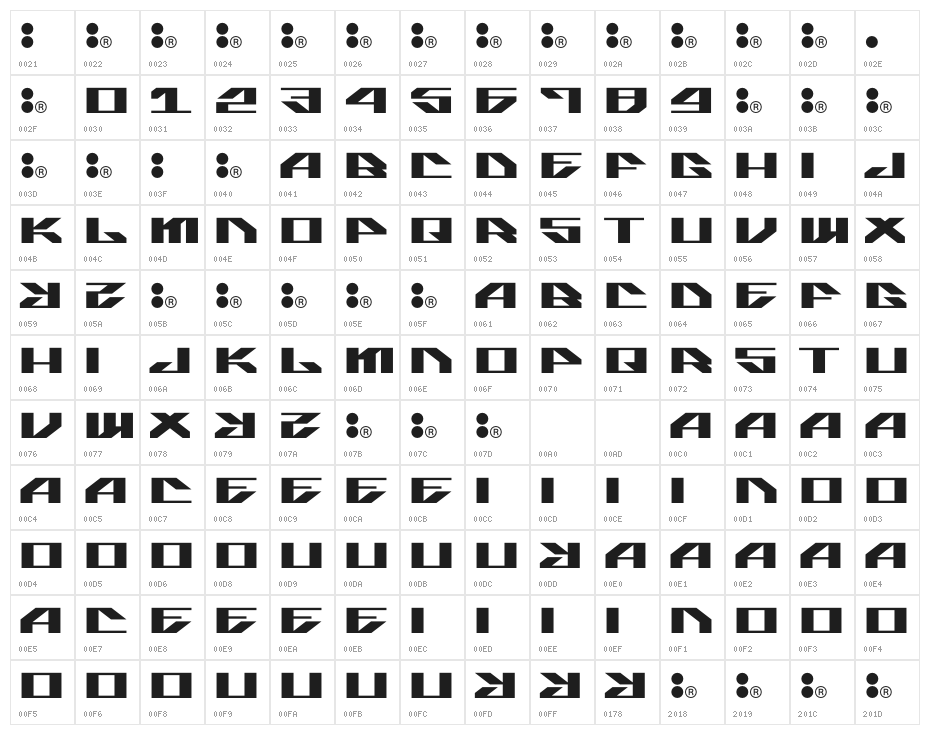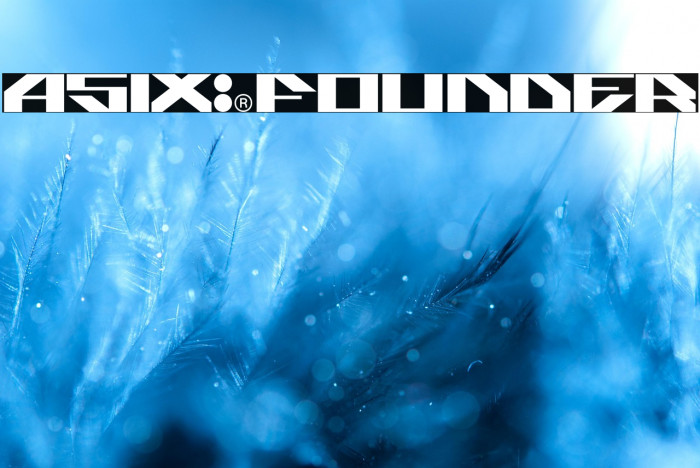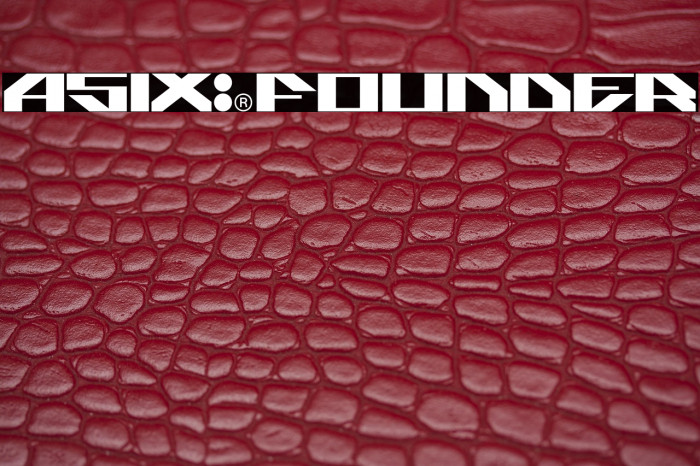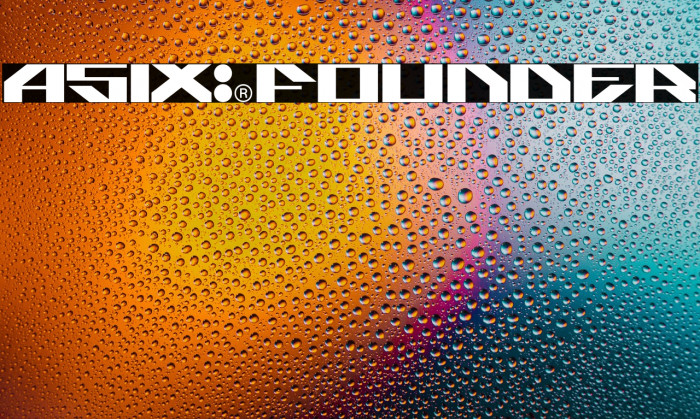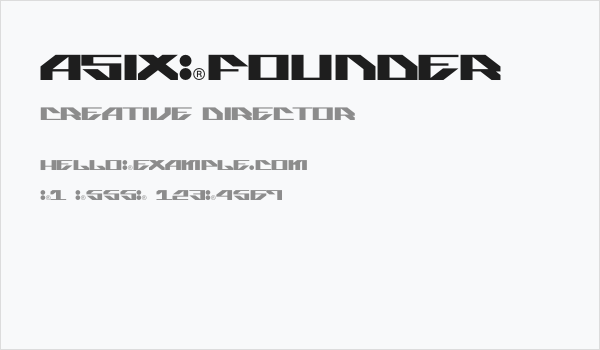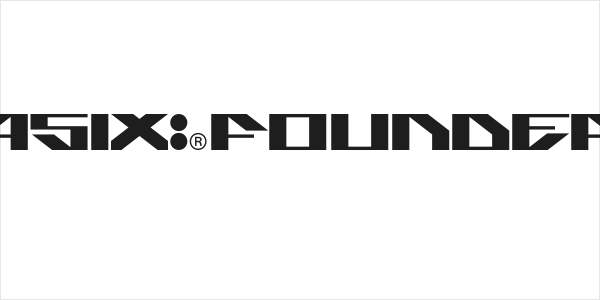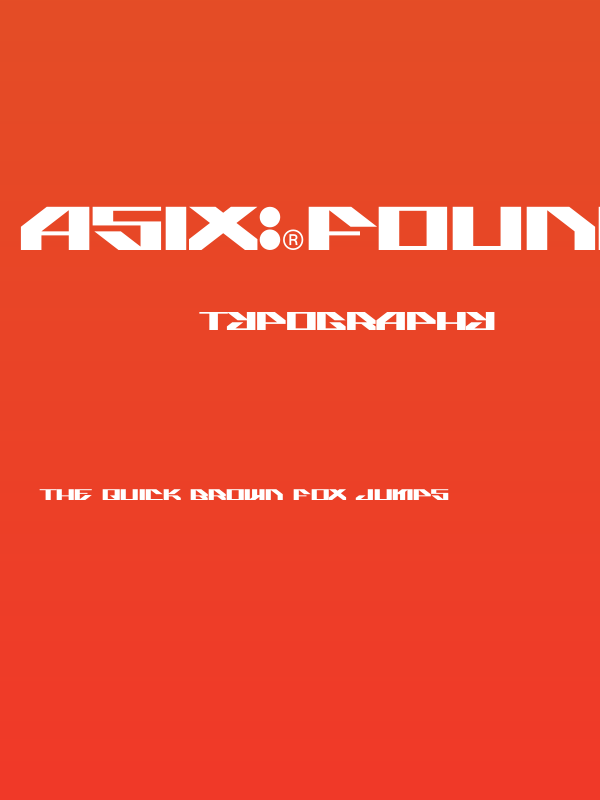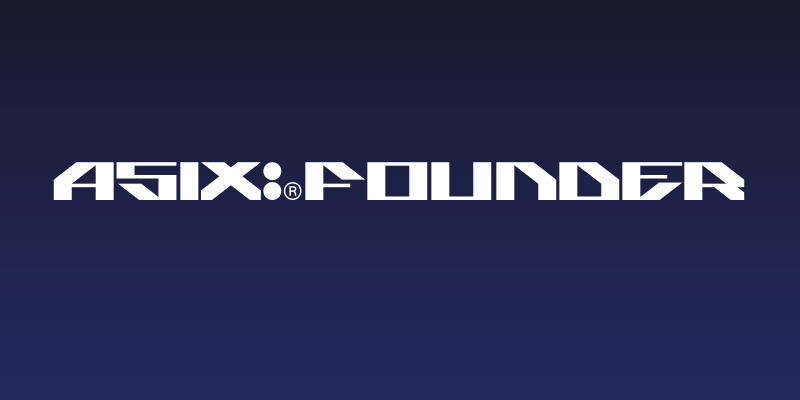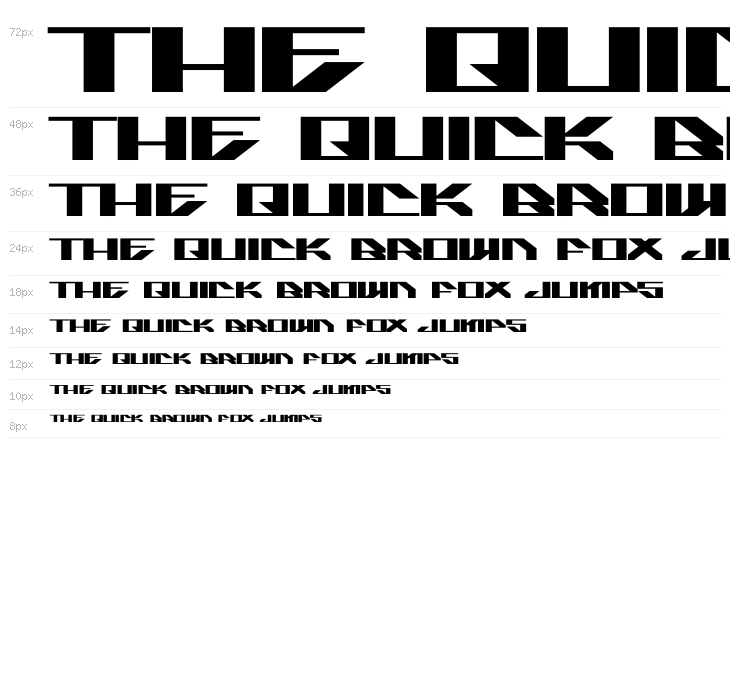
ASIX-FOUNDER Font
ASIX-FOUNDER Description
This font features a bold, geometric design with sharp angles and a futuristic aesthetic. The characters are constructed with a combination of solid and cut-out sections, creating a dynamic and edgy look. The uppercase letters are particularly striking, with a consistent angular motif that runs throughout. The numbers and special characters maintain the same bold style, ensuring a cohesive appearance across all elements. This font is highly stylized, making it ideal for projects that require a modern and impactful visual presence.
| Overall Style | Futuristic |
| Use Case | Logos, Headlines |
| Proposed Projects | Ideal for branding, logos, video game design, and sci-fi themed projects. |